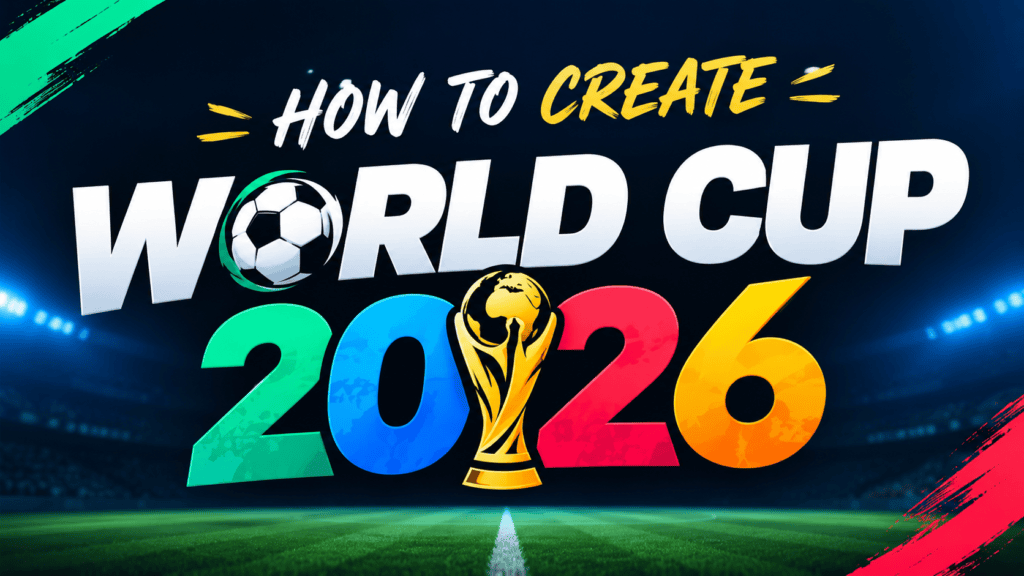
The World Cup 2026 font generator brings typography into fan design, letting users shape football phrases with a bold display style. In practice, I find Unicode characters especially useful for quick social concepts for creators.
For polished projects, treat the visual result as tournament identity rather than an official asset. A careful workflow balances readability, generated lettering, copy, and paste, while keeping branding clearly fan-oriented across modern fan design projects.
World Cup 26 Font Details
In practice, WC2026 Style works best as a display treatment when tournament energy matters more than strict authenticity. I often test bold forms beside typography alternatives, checking balance, spacing, and how the visual identity reads.
For World Cup 26 Font projects, the strongest results usually come from black, heavy, narrow lettering paired with a clear championship mood. This approach suits generated lettering, fan text, and supporter graphics without implying licensing.
Is The World Cup 2026 Font Official?
The official question is easy to misread: a FIFA reference does not automatically make generated lettering the tournament’s official typeface. In practice, many tools offer an official-style interpretation for fan projects and creative uses today.
I treat such generated typography as tournament-inspired, not automatically licensed branding. The distinction matters when creating commercial graphics, posters, or social content, because usage rights and trademarks can impose separate limits, especially commercially and legally.
Best Uses For World Cup 2026 Fonts
Posters benefit from bold display treatments, while jerseys need compact lettering that stays clear at a distance. For watch parties, I use banners, fan art, and mockups to build consistent sports graphics across event materials.
For digital promotion, social media visuals can reuse headlines, team names, and slogans in thumbnails or wallpapers. I favor tournament titles, championship phrases, and supporter graphics when creating memorable fan-oriented visual graphics for online campaigns.
How To Create World Cup 2026 Typography
To create polished World Cup 2026 typography, I usually start with a clear headline, then generate a bold graphic around the message. Adjust spacing and hierarchy before exporting PNG artwork for the final composition itself.
For a poster, choose a strong display font, test typography at the intended viewing size, and keep lettering readable against imagery. This practical method produces a clean tournament design while preserving visual energy and personality.
World Cup 2026 Font Examples
Examples become clearer when WC2026 Style, World Cup 2026 Bold Sans, and World Cup Flag Letters are tested beside bold sans options. For match graphics, I compare generated lettering visually before choosing a visual style.
I also test football and soccer lettering at practical sizes, checking display styles across related styles. A strong World Cup treatment should remain recognizable in tournament artwork while keeping supporter-facing typography crisp and football focused.
Country Flags And Football Symbols
I usually start with country flags because they identify teams instantly; adding football symbols gives usernames and captions more character. Unicode lets supporters insert these details into social media profiles without image edit work daily.
For fan names, I find a restrained approach works best: combine one country combination with a single emblem-like mark, then copy-paste the result into a bio or caption. This keeps the typography highly readable today.
Copy-Paste World Cup Fan Names
Copy-paste fan names work best when identity stays obvious. I often pair country flags with football symbols, Unicode accents, then reuse them across bios, captions, and social profiles without extra clutter.
For match day, test a few country combinations before choosing one. Clear supporter identity matters more than flashy styling, especially in fan content where names should remain readable beside national teams and team colors online.
Best Font Size And Readability
In practice, readability matters more than oversized styling. For World Cup graphics, I usually test small sizes first, then adjust wider spacing and a less-bold weight until letters stay distinct on mobile, posters, and screens.
An ultra-condensed display style can work brilliantly for headlines, but compact letters become risky when viewed quickly. My preference is stronger contrast, generous spacing, and enough size to preserve legibility in scoreboard graphics and social posts.
World Cup 2026 Font Download
For a practical World Cup 2026 font download, I treat the generated lettering as artwork first. A PNG suits quick sharing, while a transparent PNG keeps backgrounds clean for posters, jerseys, and thumbnails online.